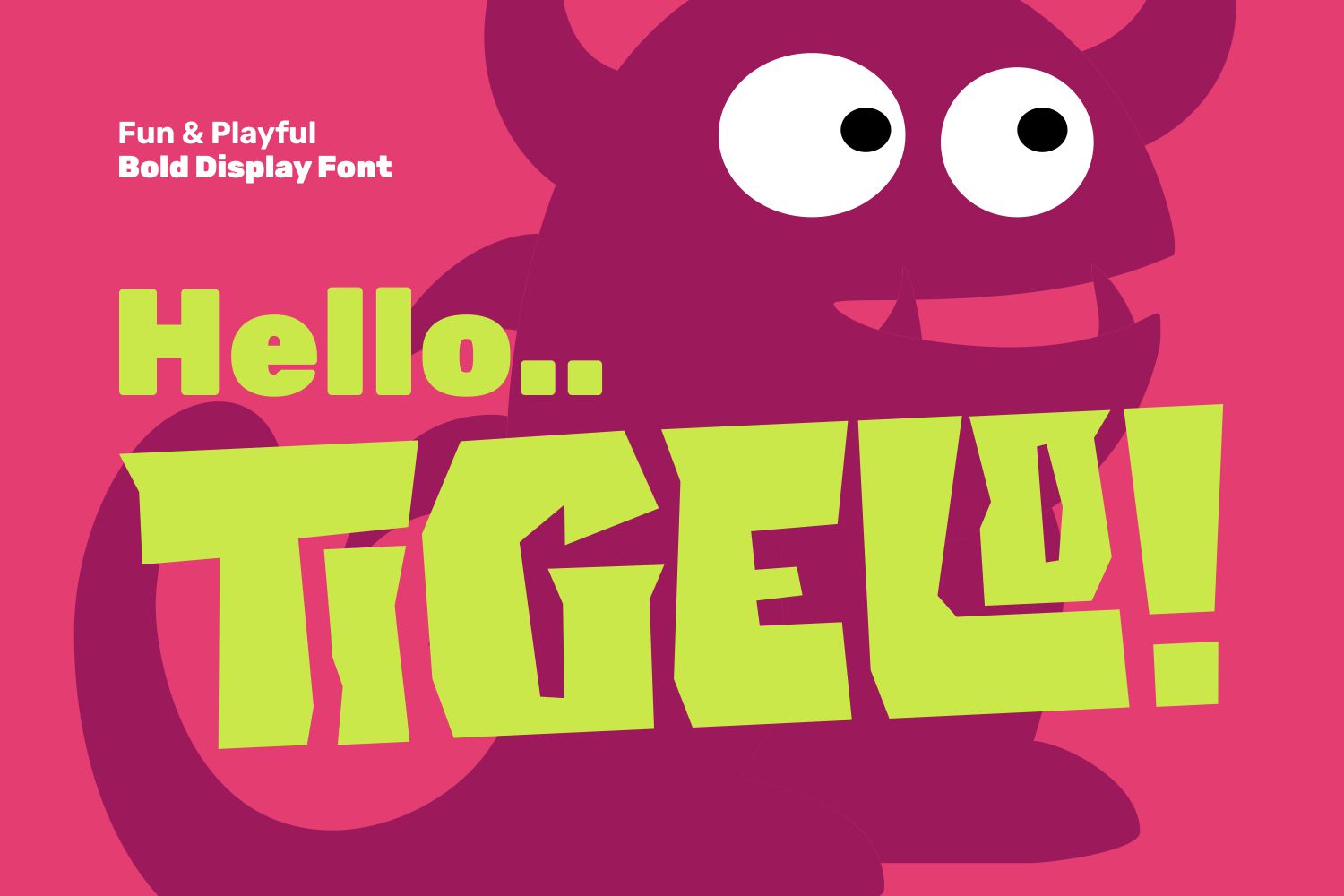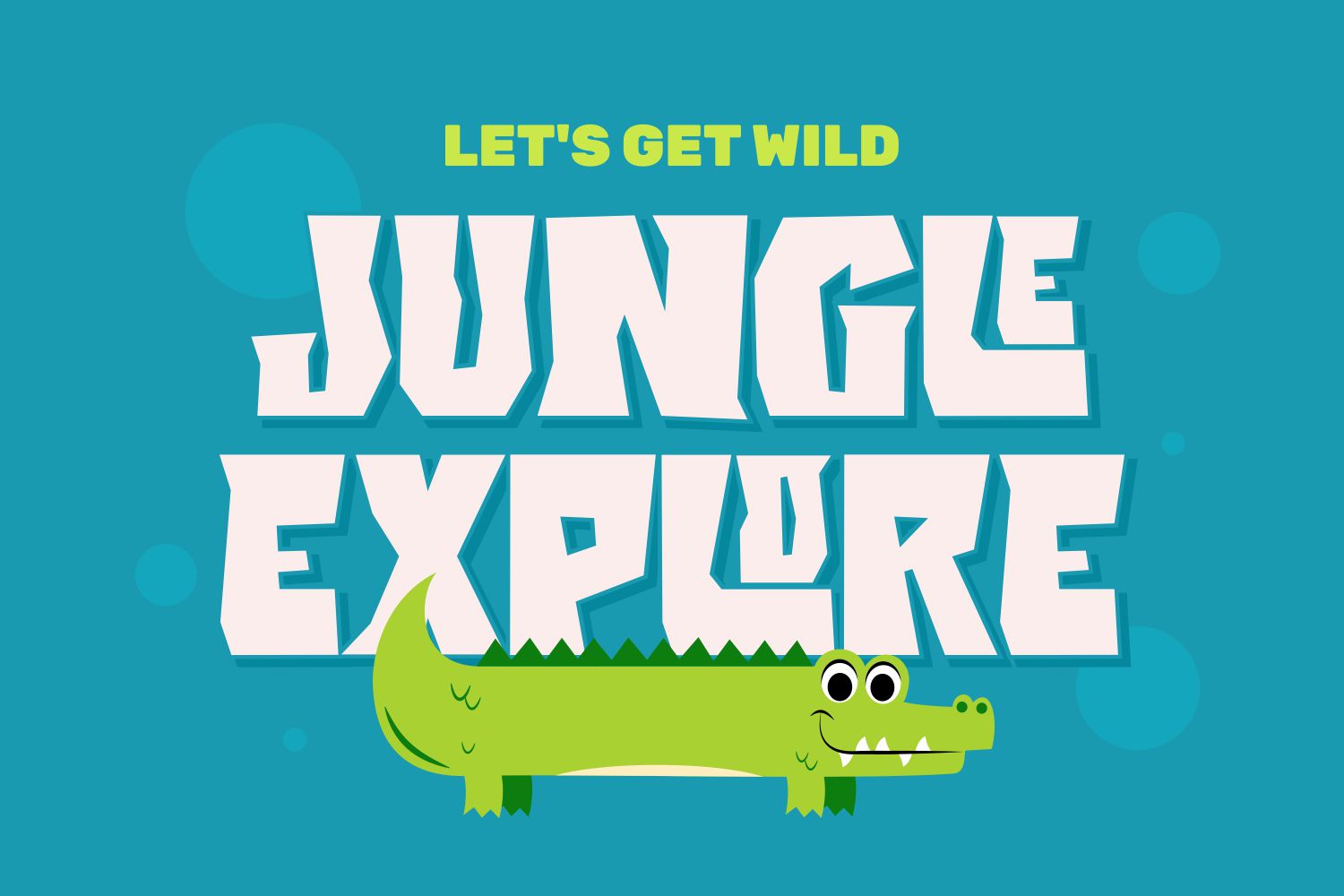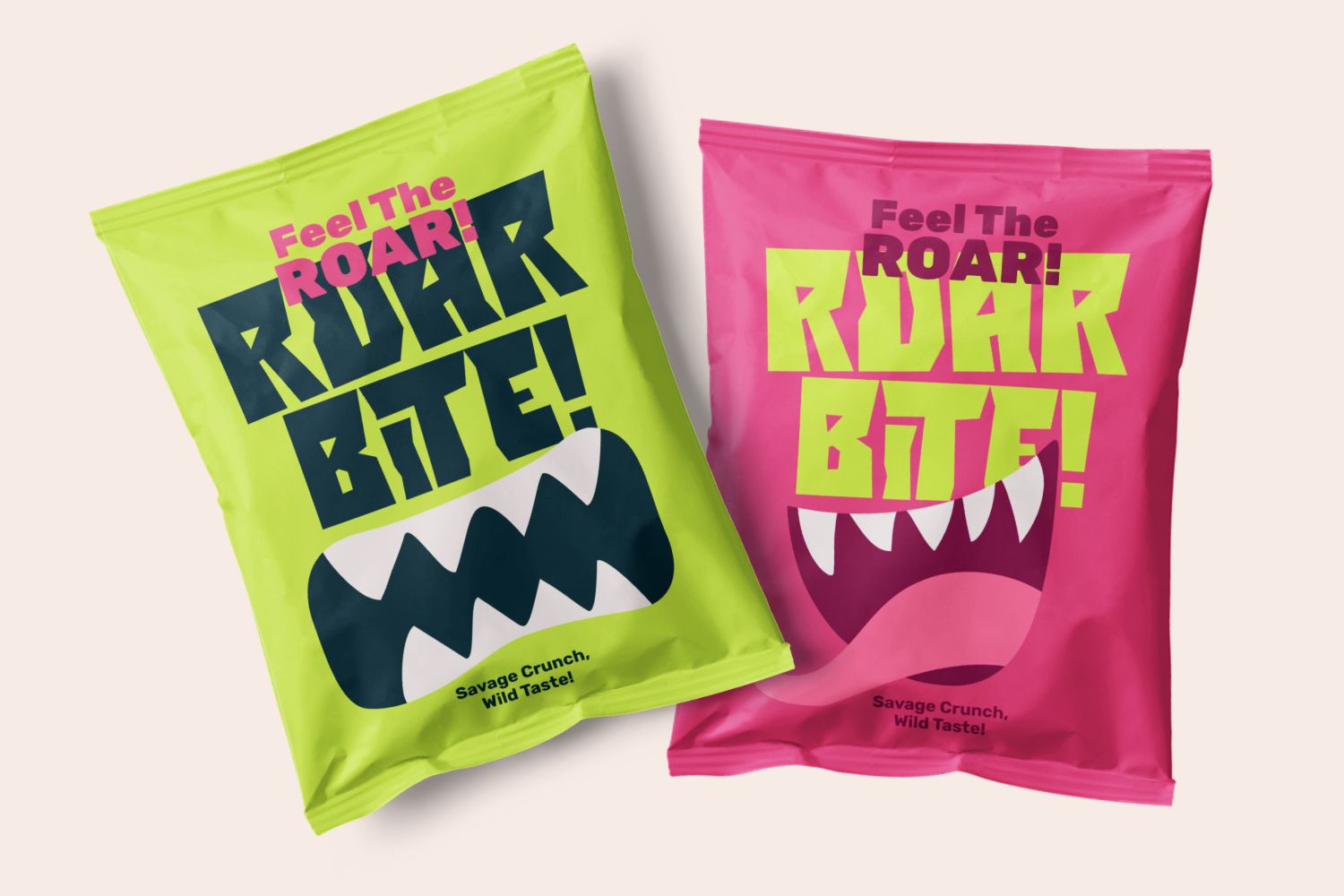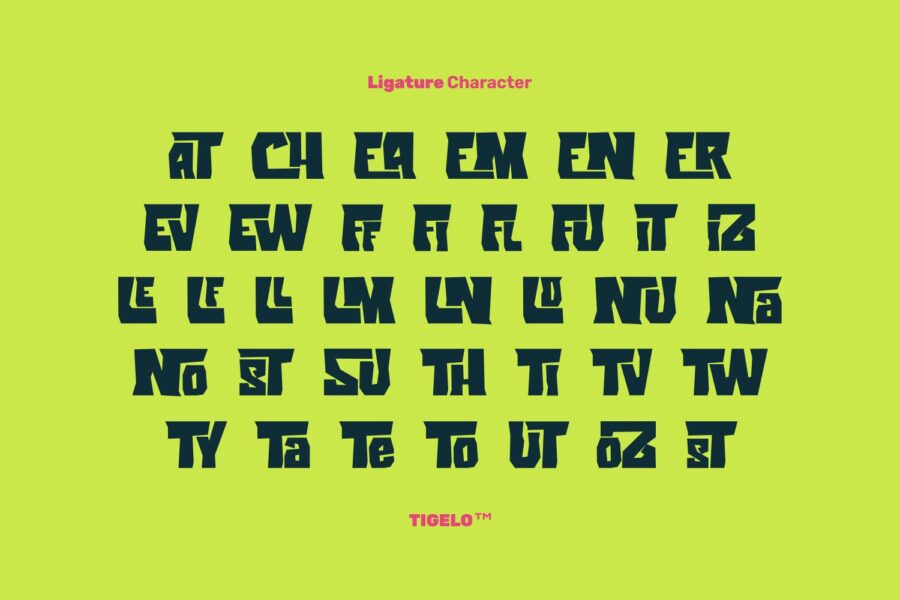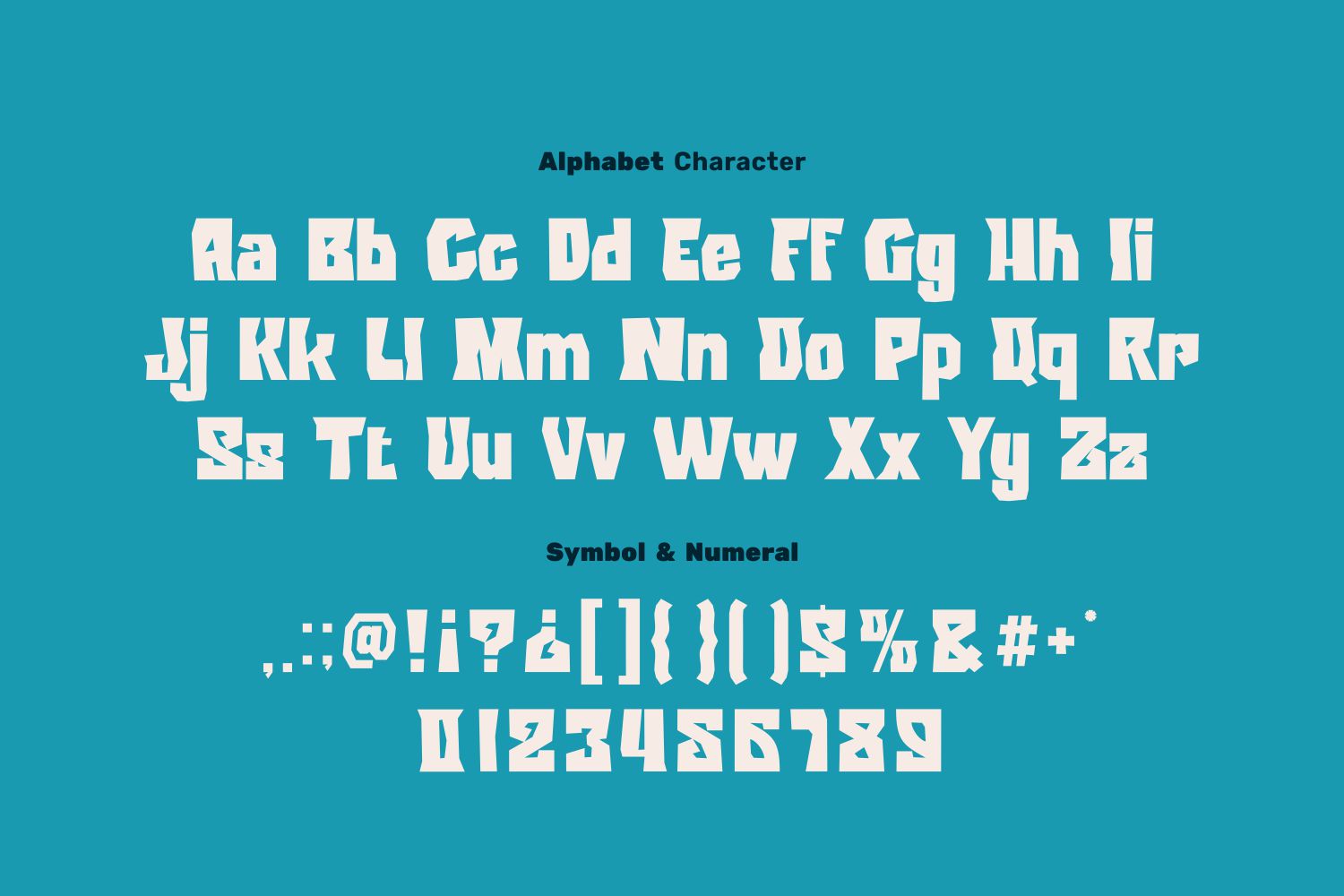
Tigelo is a bold and playful display font designed to bring energy and excitement to your projects. With its chunky letterforms and quirky cuts, this typeface radiates a fun, adventurous spirit that is perfect for children’s themes, cartoons, packaging, and eye-catching headlines. The irregular yet balanced shapes give it a wild, lively feel that instantly grabs attention and adds character to any design.
Equipped with ligatures, alternates, and full multilingual support, Tigelo offers versatility while maintaining its bold personality. It shines in branding, posters, snack packaging, and any design project that needs a loud, cheerful, and dynamic look. If you want your typography to roar with fun and vibrancy, Tigelo is the perfect choice.
Tigelo